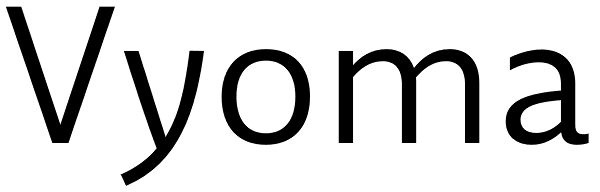
Vyoma
Joana Correia’s Vyoma is a friendly-looking typeface and an outstanding humanistic sans. Its letterforms appear both playful and nice. Several letters feature curved out-strokes: these are unusual for a sans serif design, but they definitely add...